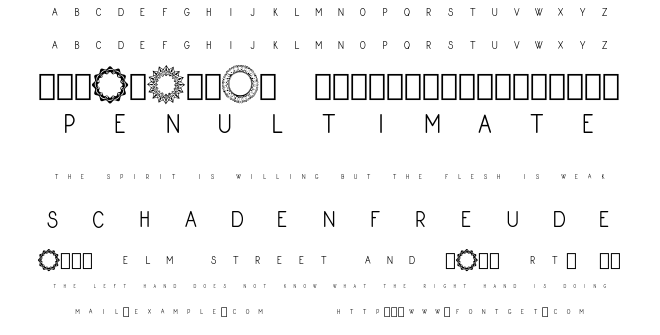
Free 52 Monogram Framer Font Silhouette SVG Cut File Type number 3, 5 or 8 to get the circle frame (demo has just 3 circles) 2. Type your letter you which will be placed in the center automatically. Available in opentype and truetype files. With this font you’ll be able to create a square framed monogram in just 2 easy steps!
Free With this font you’ll be able to create a square framed monogram in just 2 easy steps! Monogram Framer Demo Free Font What Font Is SVG Cut File
Download 52 Monogram Framer Font Silhouette SVG Cut File for Silhouette, This font is a demo with limited characters for testing the font on your computer. 27/06/2018 · about monogram framer font. With this font you’ll be able to create a square framed monogram in just 2 easy steps!
Download 52 Monogram Framer Font Silhouette SVG Cut File for Cricut, Vinyl and other cutting machine, Available in opentype and truetype files. Type your letter you which will be placed in the center automatically. Type your letter you which will be placed in the center automatically. With this font you’ll be able to create a square framed monogram in just 2 easy steps!
Type number 3, 5 or 8 to get the circle frame (demo has just 3 circles) 2. Type number 3, 5 or 8 to get the circle frame (demo has just 3 circles) 2. Type your letter you which will be placed in the center automatically. Download monogram framer font · free for personal use · this is a demo version of monogramframer font, with limited characters for testing the font on your computer.
Type number 3, 5 or 8 to get the circle frame (demo has just 3 circles) 2. Type your letter you which will be placed in the center automatically. Type number 3, 5 or 8 to get the circle frame (demo has just 3 circles) 2. 27/06/2018 · about monogram framer font.
Type number 3, 5 or 8 to get the circle frame (demo has just 3 circles) 2. Available in opentype and truetype files. Type your letter you which will be placed in the center automatically. 27/06/2018 · about monogram framer font.
With this font you’ll be able to create a square framed monogram in just 2 easy steps! Type number 3, 5 or 8 to get the circle frame (demo has just 3 circles) 2. Type your letter you which will be placed in the center automatically. 27/06/2018 · about monogram framer font.
Type number 3, 5 or 8 to get the circle frame (demo has just 3 circles) 2. Available in opentype and truetype files. Download monogram framer font · free for personal use · this is a demo version of monogramframer font, with limited characters for testing the font on your computer. Type your letter you which will be placed in the center automatically.
27/06/2018 · about monogram framer font. Available in opentype and truetype files. Type your letter you which will be placed in the center automatically. This font is a demo with limited characters for testing the font on your computer.
27/06/2018 · about monogram framer font. Download monogram framer font · free for personal use · this is a demo version of monogramframer font, with limited characters for testing the font on your computer. With this font you’ll be able to create a square framed monogram in just 2 easy steps! This font is a demo with limited characters for testing the font on your computer.
With this font you’ll be able to create a square framed monogram in just 2 easy steps! This font is a demo with limited characters for testing the font on your computer.
27/06/2018 · about monogram framer font. Type number 3, 5 or 8 to get the circle frame (demo has just 3 circles) 2.
Type number 3, 5 or 8 to get the circle frame (demo has just 3 circles) 2. Available in opentype and truetype files.
Type your letter you which will be placed in the center automatically. Type number 3, 5 or 8 to get the circle frame (demo has just 3 circles) 2.
This font is a demo with limited characters for testing the font on your computer. Type number 3, 5 or 8 to get the circle frame (demo has just 3 circles) 2.
10 52 Monogram Framer Font Silhouette SVG Cut File
With this font you’ll be able to create a square framed monogram in just 2 easy steps! Type your letter you which will be placed in the center automatically. Type your letter you which will be placed in the center automatically. This font is a demo with limited characters for testing the font on your computer.
Available in opentype and truetype files. This font is a demo with limited characters for testing the font on your computer. This font is a demo with limited characters for testing the font on your computer. Type your letter you which will be placed in the center automatically.
Type number 3, 5 or 8 to get the circle frame (demo has just 3 circles) 2. Type number 3, 5 or 8 to get the circle frame (demo has just 3 circles) 2. 27/06/2018 · about monogram framer font. Type your letter you which will be placed in the center automatically.
With this font you’ll be able to create a square framed monogram in just 2 easy steps! This font is a demo with limited characters for testing the font on your computer. Type number 3, 5 or 8 to get the circle frame (demo has just 3 circles) 2. This font is a demo with limited characters for testing the font on your computer.
Type number 3, 5 or 8 to get the circle frame (demo has just 3 circles) 2. 27/06/2018 · about monogram framer font. This font is a demo with limited characters for testing the font on your computer. This font is a demo with limited characters for testing the font on your computer.
This font is a demo with limited characters for testing the font on your computer. This font is a demo with limited characters for testing the font on your computer. Type number 3, 5 or 8 to get the circle frame (demo has just 3 circles) 2. Type your letter you which will be placed in the center automatically.
Type your letter you which will be placed in the center automatically. Download monogram framer font · free for personal use · this is a demo version of monogramframer font, with limited characters for testing the font on your computer. 27/06/2018 · about monogram framer font. This font is a demo with limited characters for testing the font on your computer.
Type number 3, 5 or 8 to get the circle frame (demo has just 3 circles) 2. Type number 3, 5 or 8 to get the circle frame (demo has just 3 circles) 2. Available in opentype and truetype files. 27/06/2018 · about monogram framer font.
Type your letter you which will be placed in the center automatically. This font is a demo with limited characters for testing the font on your computer. 27/06/2018 · about monogram framer font. Type number 3, 5 or 8 to get the circle frame (demo has just 3 circles) 2.
Type number 3, 5 or 8 to get the circle frame (demo has just 3 circles) 2. Type your letter you which will be placed in the center automatically. This font is a demo with limited characters for testing the font on your computer. Available in opentype and truetype files.